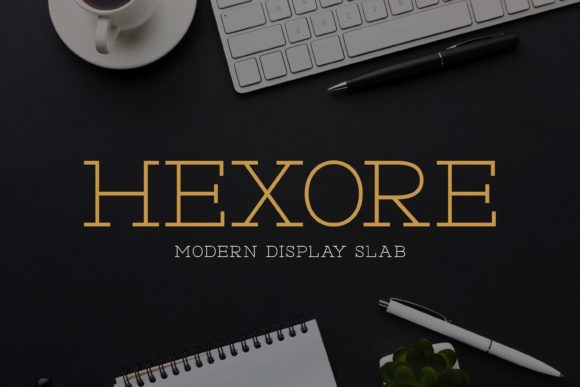
Step into the realm of elegance and sophistication with Hexore Font, the modern slab serif font crafted by almarkhatype. Experience the allure of luxury and timeless beauty as you explore the limitless possibilities that await within this typographic masterpiece.
Hexore Font, with its bold and commanding presence, is a visual symphony that captivates and enchants. Its clean lines and sharp edges exude an air of authority, making it the perfect choice for conveying messages of importance and distinction. Whether you're crafting logos, branding materials, or captivating headlines, Hexore Font will elevate your designs to new heights of sophistication.
Immerse yourself in the world of modern luxury as you discover the versatility of Hexore Font. Its timeless design transcends trends, making it an enduring choice for those seeking a font that stands the test of time. From elegant invitations and wedding stationery to high-end fashion catalogs and luxury brand identities, Hexore Font seamlessly adapts to a myriad of design concepts, adding a touch of opulence and refinement to each project.
Unleash the power of persuasion as you harness the allure of Hexore Font in your marketing endeavors. Its ability to command attention and convey messages with clarity and impact makes it an invaluable asset for businesses and entrepreneurs looking to leave a lasting impression on their audience. Craft compelling advertisements, social media posts, and website content that resonates with sophistication and exclusivity, leaving your customers yearning for more.
Hexore Font is more than just a collection of letters and symbols; it's an artistic expression that breathes life into your creative visions. Its modern slab serif design evokes a sense of grandeur and prestige, making it the perfect choice for designers seeking to create designs that exude luxury and sophistication. Let Hexore Font be your muse as you embark on a creative journey that will leave your audience spellbound.